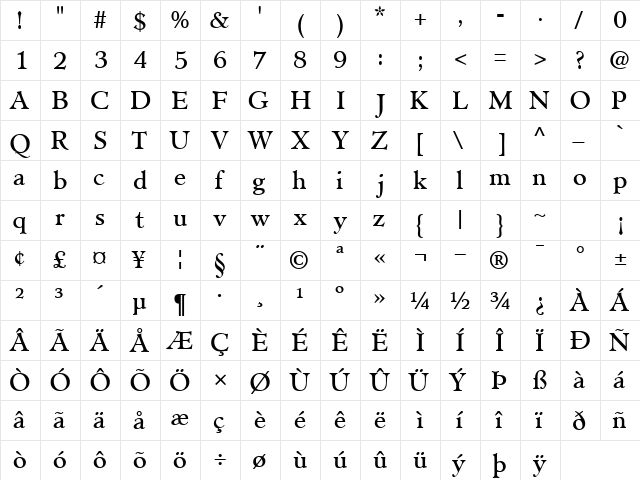
ClericSSK Regular
Design Context for ClericSSK Typeface
ClericSSK is a composed and adaptable typeface that performs quietly and consistently across a wide range of design contexts.